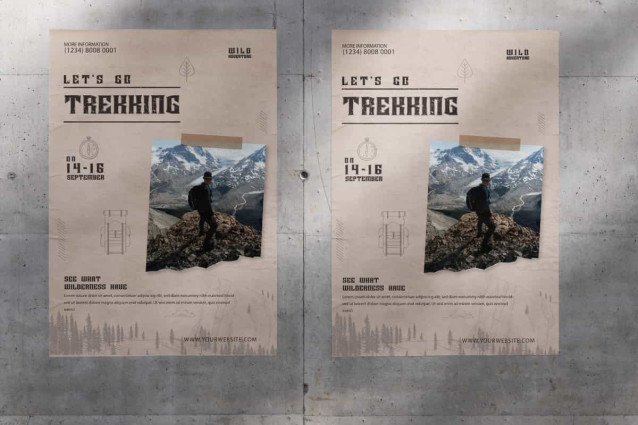
Bigroar Font
Bigroar Font is a black metal racing display font with a strong, fierce, and characterful design. Its sharp and solid letter style reflects courage and assertiveness. Making it a perfect choice for any industries, such as automotive, clothing brand, coffee shop, event or festival, game, graphic design, outdoor activities, racing, sports, and more.
Bigroar Font includes full set of ALL CAPS for Uppercase and Lowercase Basic Characters, Numbers, Punctuation and Symbols. This font also contain Alternate character that give a fierce and strong impression. Perfect for billboard, branding, brochure, custom design, label, logo, poster, screen print, sleeve paper, sticker, website, or just art text stringing words.